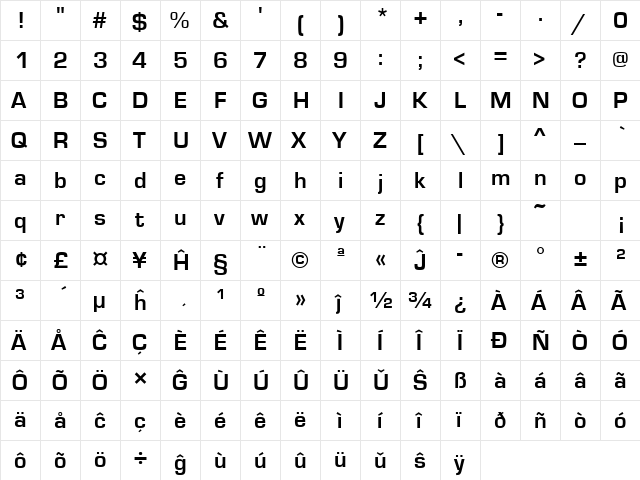
Eurostile Eo Bold
Design Context for Eurostile Eo Typeface
Eurostile Eo offers clean, dependable letterforms without strong stylistic allegiance, making it a practical choice for designers who need flexibility. The heavy weight commands attention and anchors typographic hierarchies.